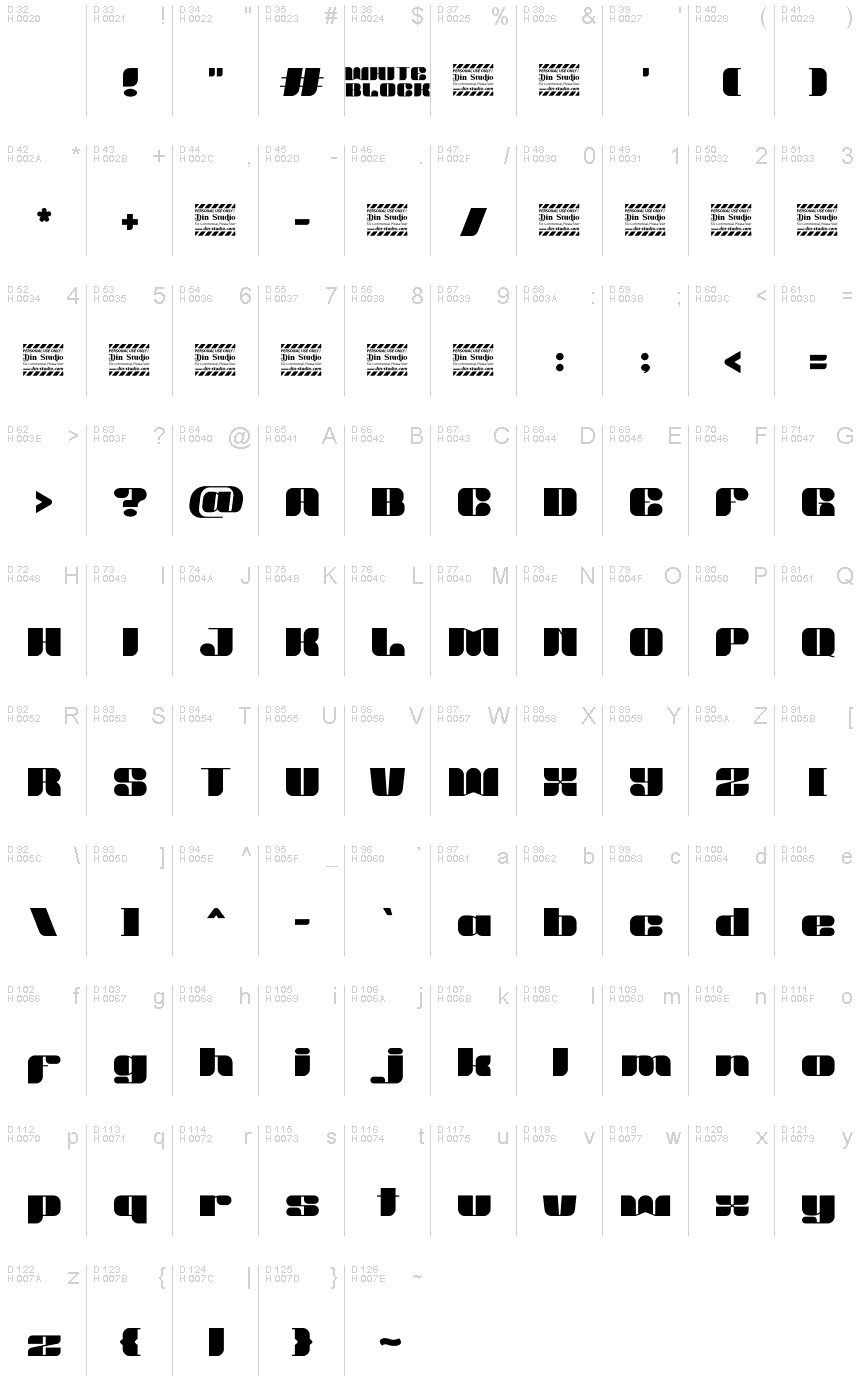
White Block Personal Use
White Block, crafted by the renowned Din Studio, is a captivating display font that exudes strength and authority. With its ultra-bold weight and extra-expanded width, it commands attention and leaves an indelible impression. Perfect for creating impactful headlines, logos, and posters, this font type is versatile enough to elevate various projects. Whether you're designing striking packaging for luxury products or developing eye-catching book covers that demand attention, White Block's unique style will effortlessly captivate your audience and make your design stand out from the crowd.